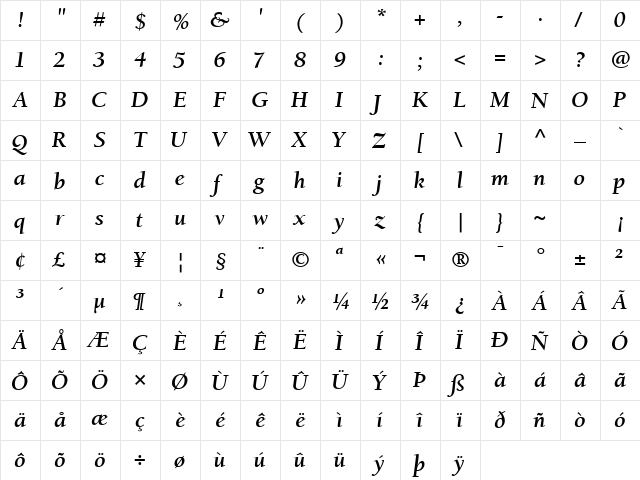
Berkeley Retrospective SSi Bold Italic Font Preview
Design Context for Berkeley Retrospective SSi Typeface
Berkeley Retrospective SSi has the warm character of retro typography — evoking diners, record sleeves, and the golden age of print advertising. The dynamic lean of this cut emphasises speed and emphasis in any layout. The heavy weight commands attention and anchors typographic hierarchies.
Ideal for diner signage, record shop branding, 70s/80s-themed projects, and heritage product labels.
Font Pairing: Combine Berkeley Retrospective SSi with a simple slab or neutral sans — period-accurate companions reinforce the vintage feel without competing for attention.